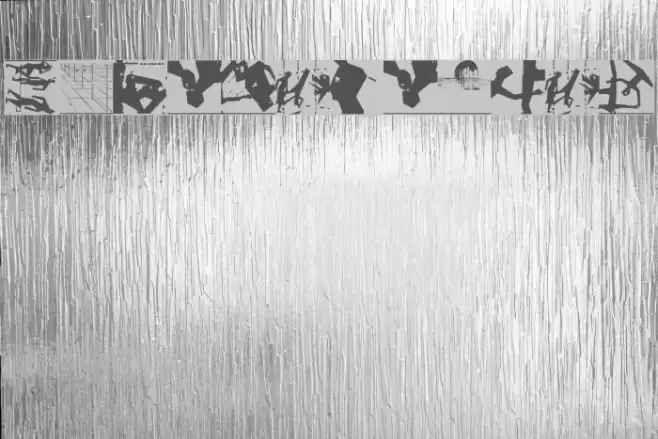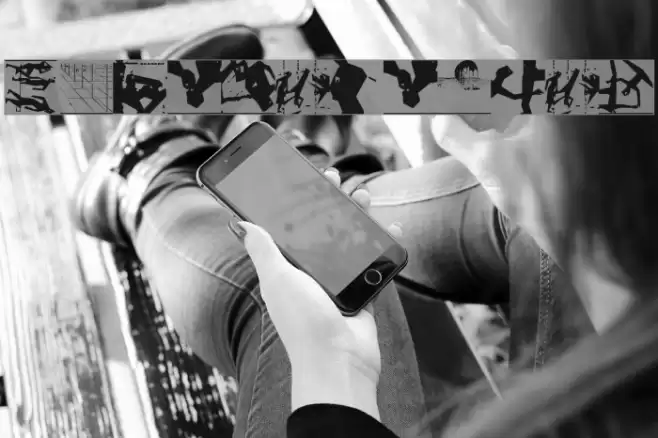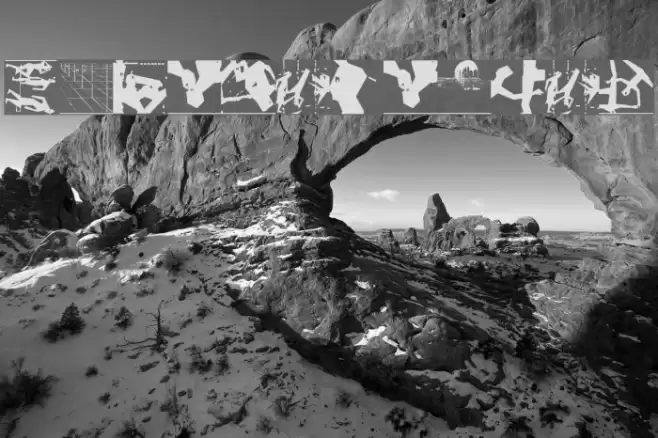
Squaredances Font
Squaredances Description
This font is a highly decorative and artistic typeface that incorporates abstract, dance-like silhouettes into each character. The letters are formed by intertwining shapes that resemble dancers in motion, creating a dynamic and energetic visual effect. The design is intricate, with each character having unique details that make it stand out. The font is bold and striking, making it suitable for creative and unconventional projects. It is not designed for readability in body text but rather for artistic expression and visual impact.
An artistic font with abstract, dance-inspired silhouettes forming each character from Uncategorized fonts.
- Proposed Projects: Ideal for creative projects such as posters, album covers, or event flyers where a bold, artistic statement is desired.
- Use Case: Logos, Headlines, Artistic projects